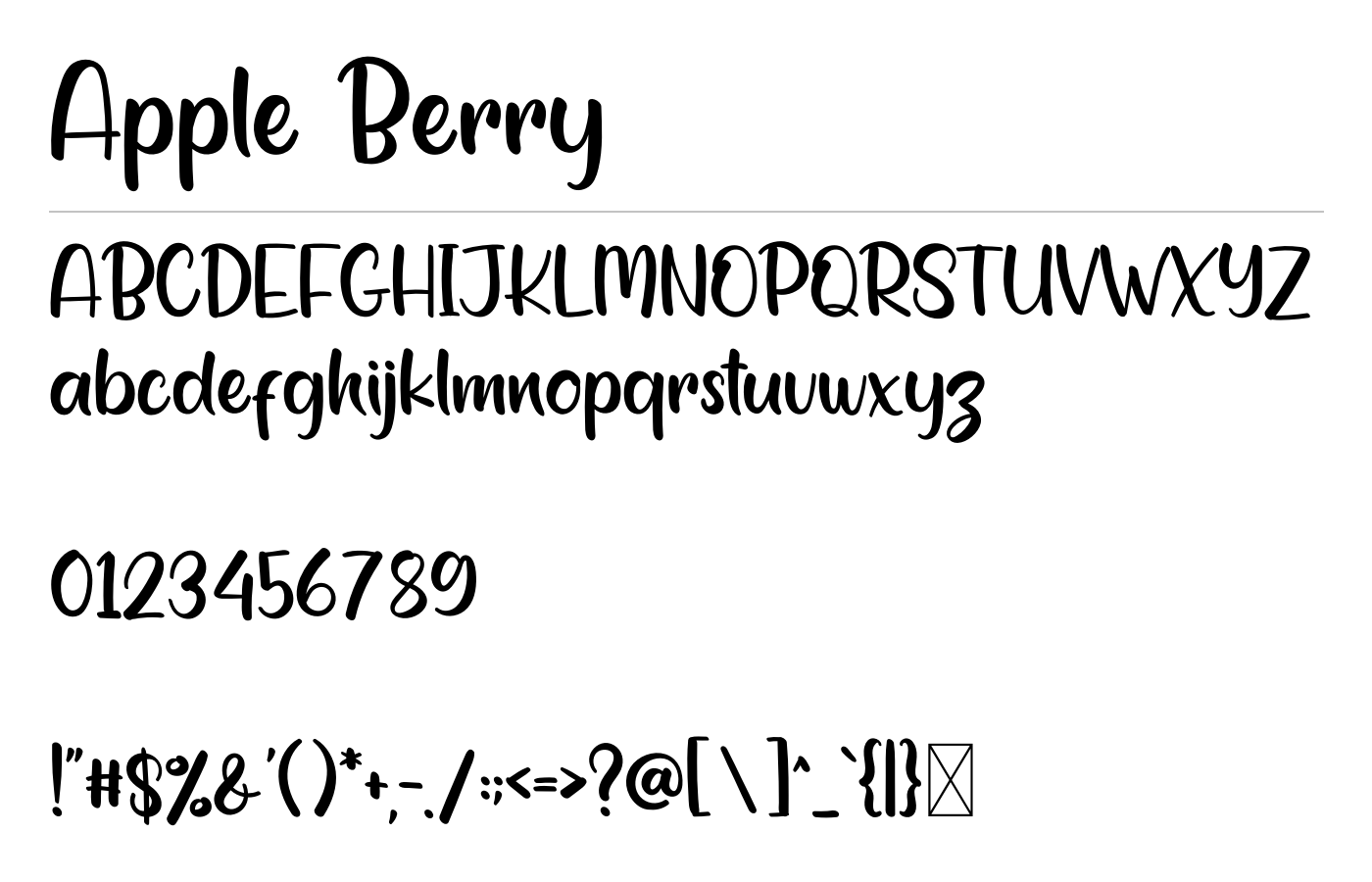
Apple Berry is a playful and friendly handwritten script font featuring smooth, rounded strokes and lively letterforms that evoke a casual, approachable feel. Its medium weight and moderate x-height make it versatile for both headlines and short text in creative projects like branding, packaging, and invitations where a warm, personal touch is desired. This font works well for designs aiming for a cheerful, informal vibe that is both modern and charming.
Apple Berry Font
About Apple Berry Font